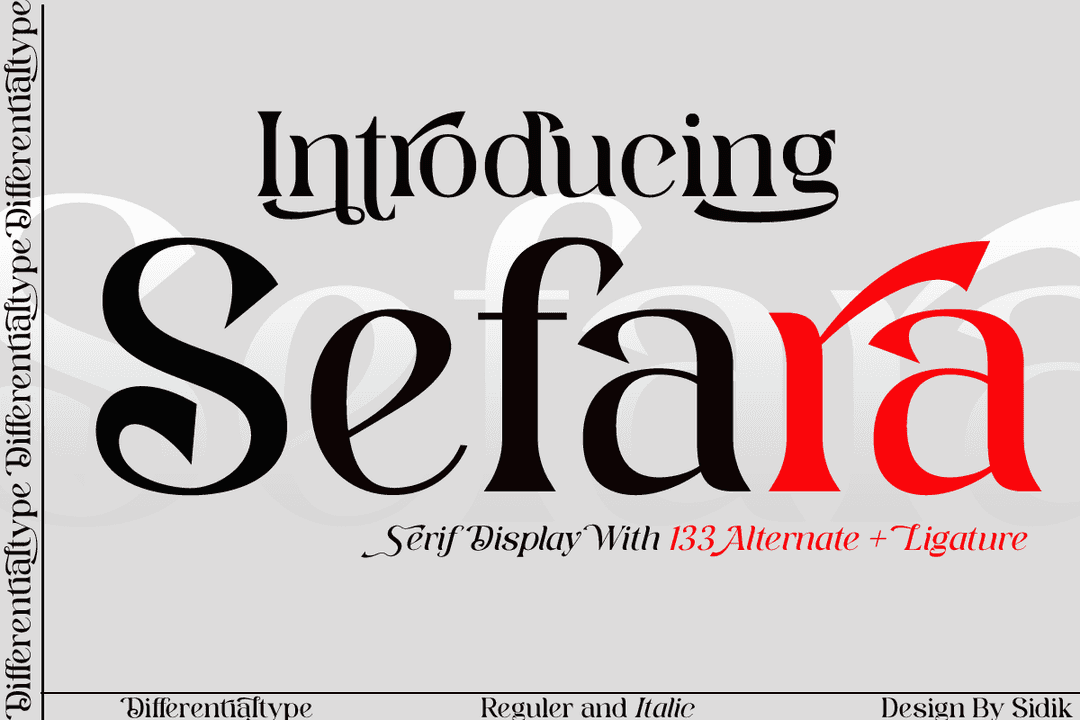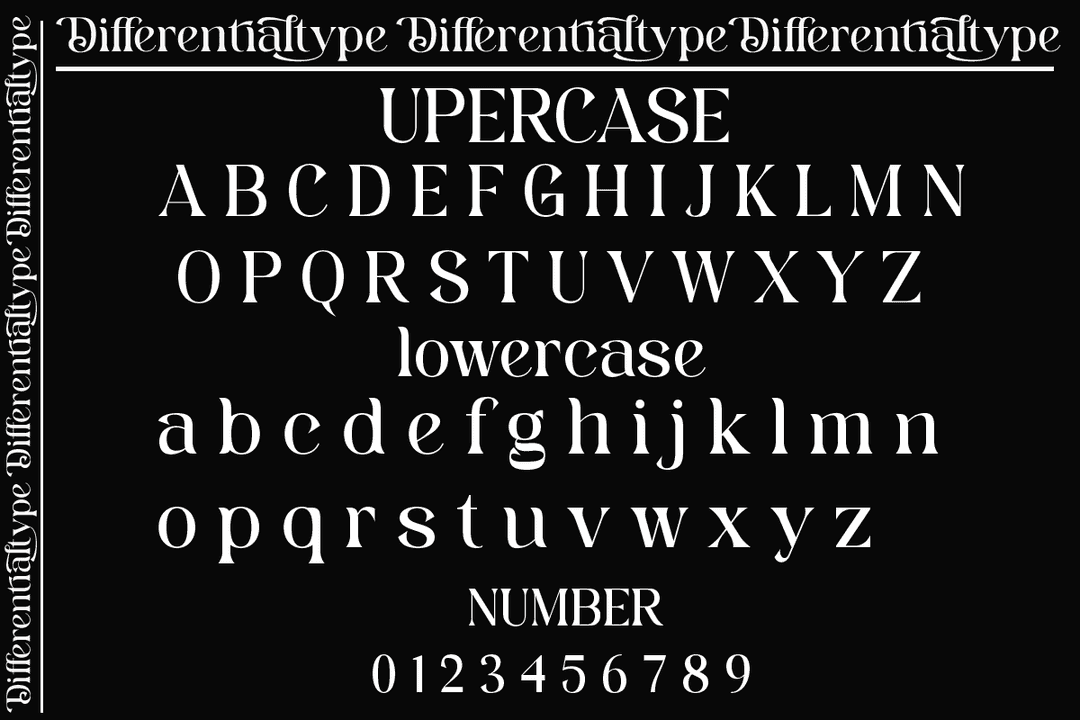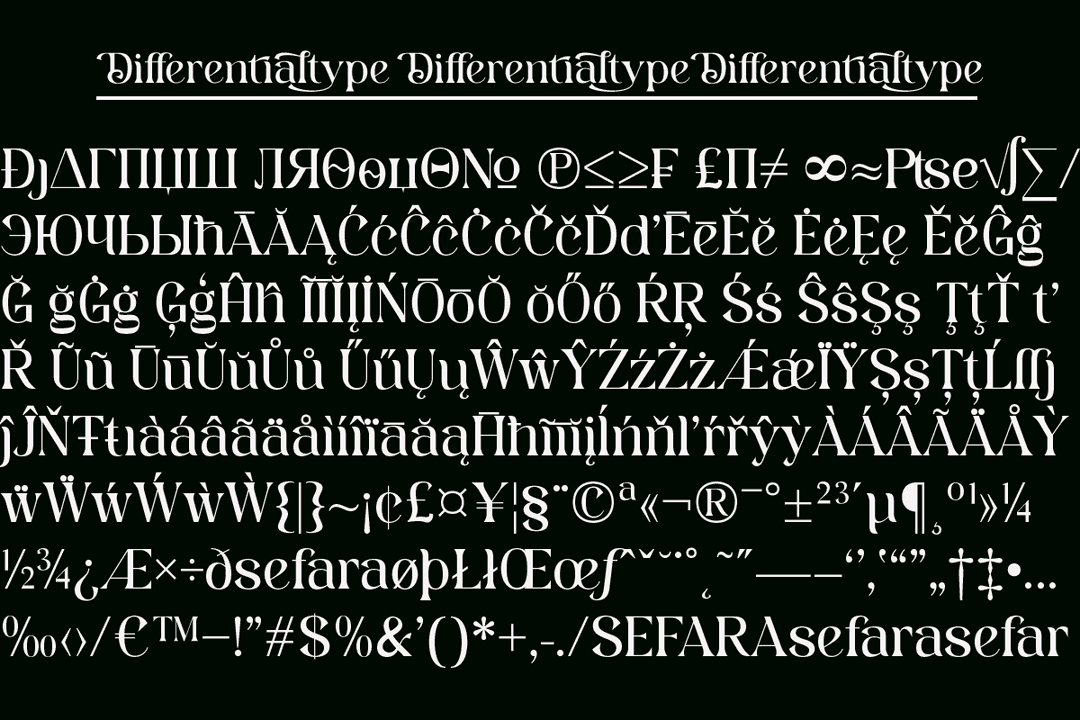
Sefara can be described as a modern and stylish serif font with classic and elegant qualities. This stylish font can be utilized to create logos, branding invitations, stationery designs and wedding designs, social media posts as well as social media posts with ease! Additionally, Sefara has been PUA encoded for your convenience to access every glyph and swash effortlessly!